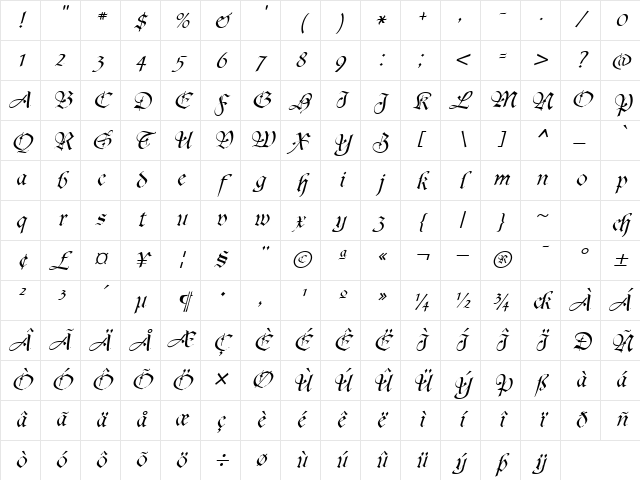
Agincort Italic
Agincort Family
Design Context for Agincort
Agincort is a composed and adaptable typeface that performs quietly and consistently across a wide range of design contexts. The slanted form adds forward momentum and visual energy.
Pro Tip: Use Agincort for emphasis, pull quotes, and subheadings where its slanted energy can add rhythm to the layout.